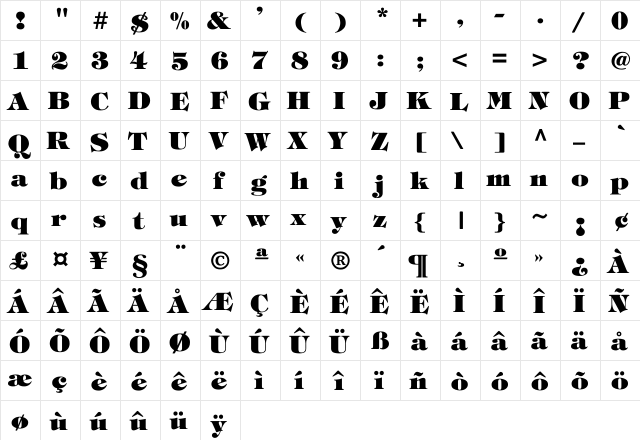
kENLEY Heavy-Normal Regular
Design Context for kENLEY Heavy-Normal Typeface
kENLEY Heavy-Normal offers clean, dependable letterforms without strong stylistic allegiance, making it a practical choice for designers who need flexibility.